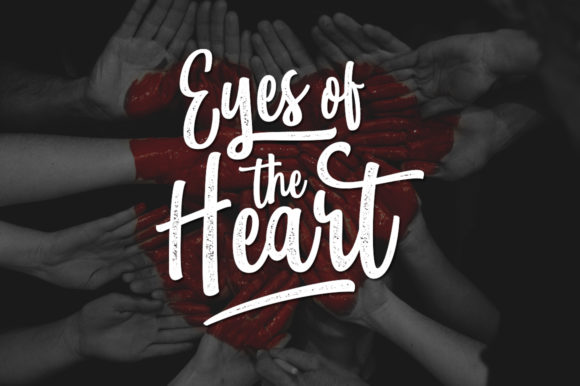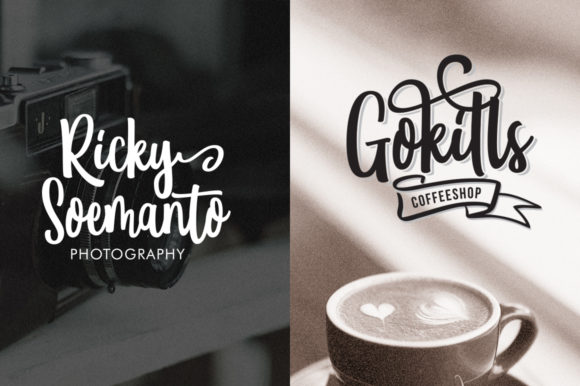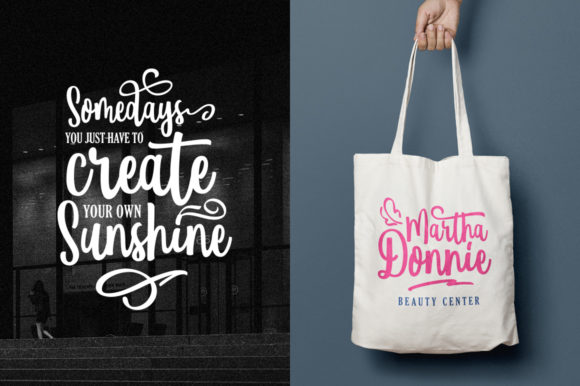
Introduction to Matahati Font
Do you remember that moment when you stumbled upon the perfect font that made your design project come alive? For many creatives, this experience is a game-changer. It’s the moment when all the pieces fall into place, and the design starts to shine. For designers seeking that perfect script font, the Matahati Font is a treasure trove of inspiration. This modern calligraphy-style font is not just a design resource but a key to unlocking the full potential of your creative project.
With its unique blend of passion and deep feelings, the Matahati Font is a high-quality design element that can elevate any design. Whether you’re working on a personal project or a commercial venture, this font is sure to leave a lasting impression. What’s more, its transparent background makes it easy to incorporate into any design, allowing you to focus on the creative aspects of your project. And the best part? You can download it for free, making it an accessible resource for designers of all levels.
Key Features of Matahati Font
- High-quality design resource ideal for creative projects, offering a unique and elegant look.
- Comes with a transparent background, providing flexibility in design composition and layout.
- Designed to be scalable, making it suitable for use in a range of applications, from small text to large headings.
- Resolution-independent, ensuring crisp and clear typography regardless of the display resolution.
- Perfect for designers seeking a sophisticated and stylish font for their next project, whether it’s a branding campaign, advertisement, or digital product.
Honest Review: Matahati Font
I recently had the chance to work with the Matahati Font, and I must say it’s a great addition to any designer’s toolkit. The font is available for free download, making it a fantastic design resource for creative projects.
Here are some of the things that I liked about the Matahati Font:
- ✨ High-quality glyphs that are perfect for titles and headings
- ✨ A wide range of weights and styles to choose from, making it suitable for various design projects
- ✨ Supports transparent backgrounds, which is ideal for creating visually appealing designs
- ⚠️ The font may not be suitable for body text, as it can be quite decorative and distracting
- ⚠️ The font is not as versatile as some other popular fonts in the market
Overall, I’m quite impressed with the Matahati Font. It’s a great choice for designers who want to add a touch of elegance and sophistication to their creative projects. While it may have some limitations, it’s a high-quality font that’s definitely worth considering for your next design project.
Common Use Cases for Matahati Font
The Matahati Font is ideal for a variety of creative projects, including logos, business cards, brochures, and social media graphics. Its high quality and versatility make it a great choice for designers and non-designers alike, and its free download makes it an accessible design resource for anyone.